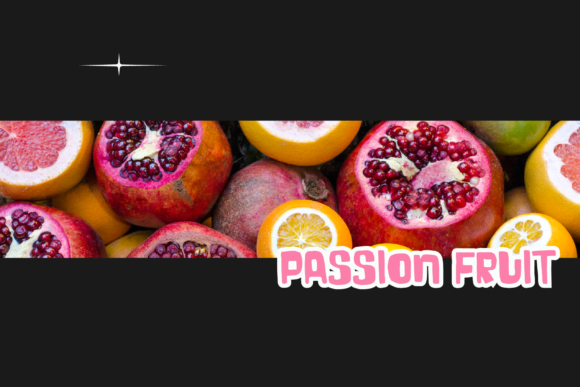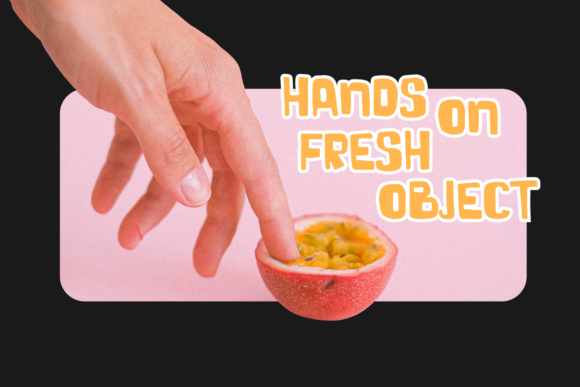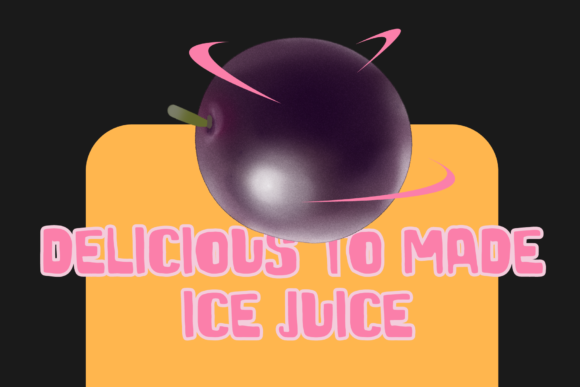
Introduction to Markisa Font
Have you ever stared at a blank canvas, waiting for the perfect spark to ignite your creative project? That’s exactly where I was when I stumbled upon the Markisa Font – a game-changer for designers seeking a high-quality, bold, and organic font that’s both readable and visually stunning.
Markisa Font is more than just a design resource; it’s a key to unlocking your imagination and bringing your ideas to life. With its unique blend of style and functionality, this font is perfect for cartoon-related designs, children’s games, quotes, titles, brand names, book covers, posters, and any other project that requires a touch of beauty.
Key Features of Markisa Font
- High-quality design resource ideal for creative projects, offering a unique and elegant touch.
Honest Review: Markisa Font
I recently stumbled upon the Markisa Font, and I must say it’s a game-changer for any design project. As a designer, I’m always on the lookout for high-quality fonts that can elevate my work and bring a unique touch to my creative projects.
- ✨ High-quality design: The Markisa Font boasts a clean, modern design that’s perfect for a variety of projects, from logos to typography-based artwork.
- ⚠️ Limited font styles: While the font itself is beautiful, the style options are somewhat limited, which may not be ideal for designers who want more flexibility.
- ⚠️ Not suitable for all projects: The font’s modern design may not be suitable for more traditional or vintage-themed projects.
Overall, I’m impressed with the Markisa Font and would definitely recommend it to fellow designers. With its high-quality design, transparent background, and free download, it’s an excellent resource for any creative project. Just keep in mind its limitations and use it accordingly.
Introduction to Markisa Font
Markisa Font is a high-quality design resource that offers a unique and creative touch to your projects. With its transparent background, this font is perfect for adding a subtle yet effective design element to your work.
Tips for Getting the Most Out of Markisa Font
To get the most out of Markisa Font, experiment with different font sizes, colors, and combinations to create a unique and eye-catching design.
Markisa Font is perfect for creative projects such as logo designs, social media graphics, and marketing materials. Its transparent background makes it ideal for overlaying text on images or using as a subtle design element.